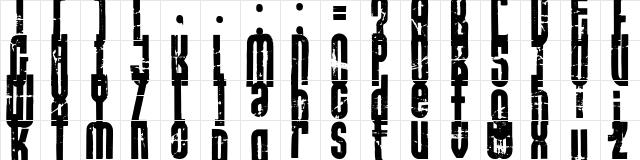
Rock it Regular
Design Context for Rock it Typeface
Rock it is a composed and adaptable typeface that performs quietly and consistently across a wide range of design contexts.